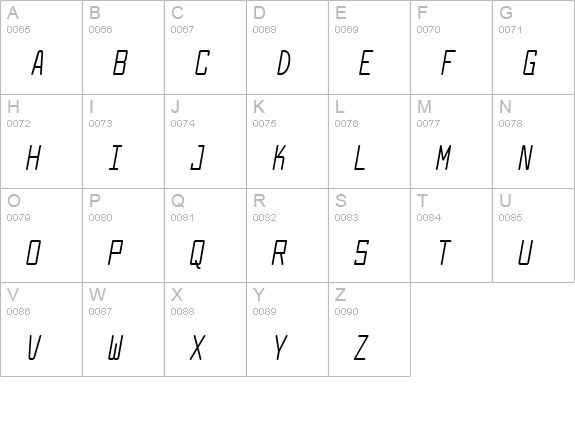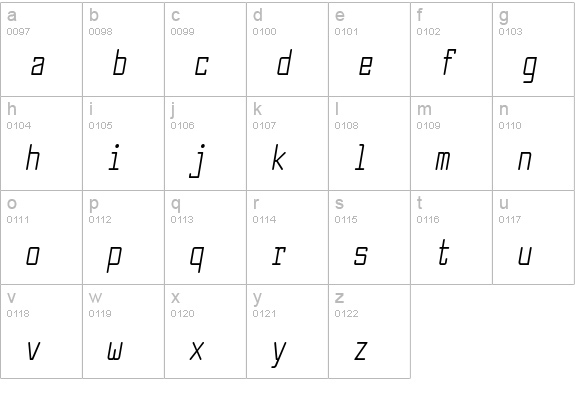
Larabiefont Compressed Italic Font Details
Larabiefont Compressed Italic is a distinctive, condensed-width, italic variant in the Larabiefont typeface family \xE2\x80\x94 well suited to design and typography projects.
Larabiefont Compressed Italic is a sleek and modern typeface that exudes elegance and sophistication. Its compressed design adds a touch of uniqueness to any project, making it perfect for titles, headings, and branding materials. The italic style of this font adds a dynamic and stylish flair, perfect for adding emphasis and visual interest. What's even better is that Larabiefont Compressed Italic is available for free download at FontsMarket.com. You can easily access this versatile font and use it in your personal or commercial projects without any restrictions. Don't miss out on the opportunity to enhance your designs with this beautiful and eye-catching typeface. Download Larabiefont Compressed Italic today and elevate your creative projects to the next level!